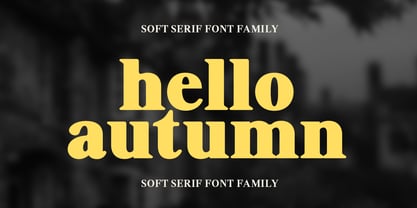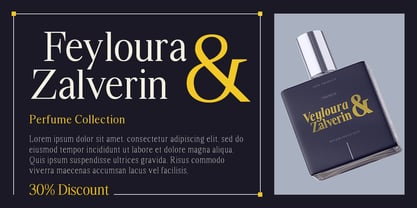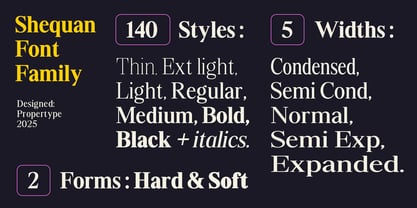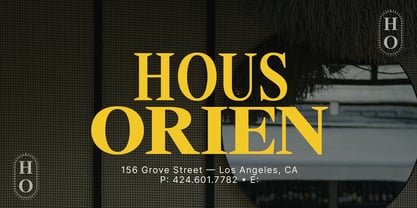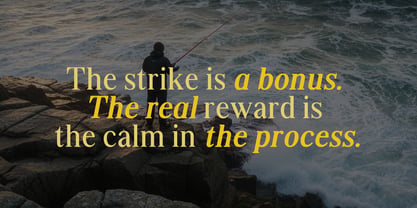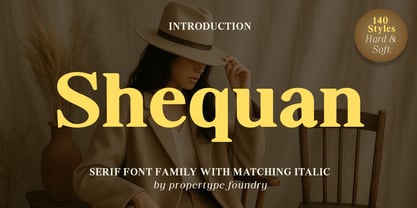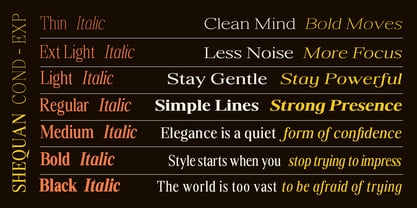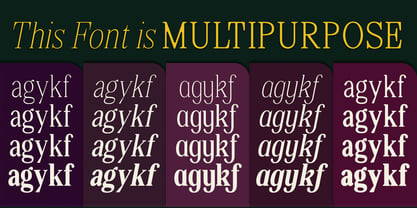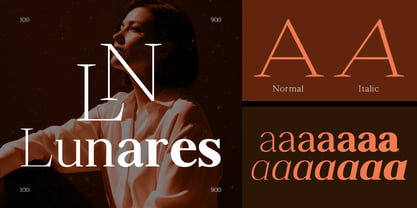
Shequan Soft
by Propertype
The Shequan Soft Font Family was designed by Nadia Auliana and published by Propertype. Shequan Soft contains 140 styles and family package options. More about this family
Shequan is a modern serif font with an elegant classic touch. Its letterforms feature balanced thick–thin contrast, soft curves, and refined serif details that create a luxurious, warm, and editorial feel. This font comes in 140 styles: 7 weights, 5 widths, and 2 forms with matching italics, and also includes ligatures and multilingual support, making it highly versatile for premium branding, magazine layouts, product packaging, and creative projects that require a classic yet contemporary character.
Designers: Nadia Auliana
Foundry: Propertype